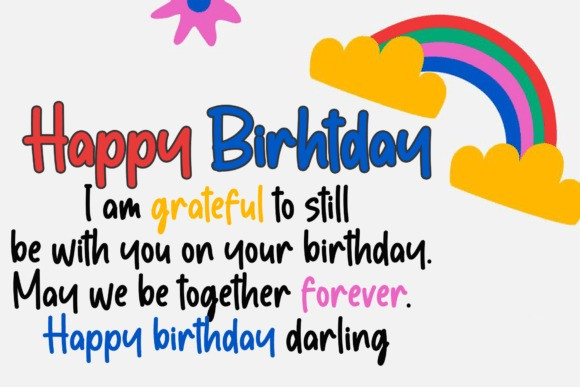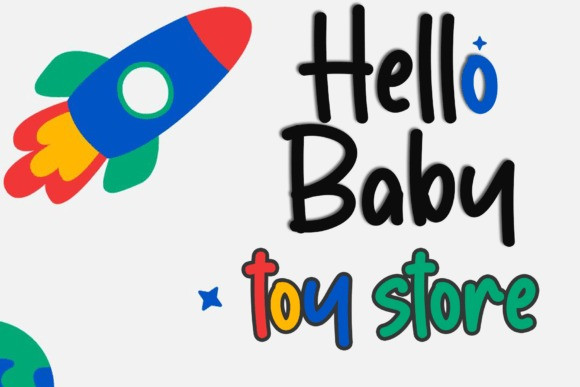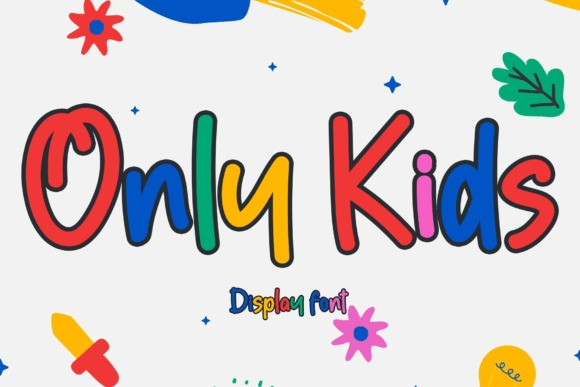
Only Kids Handwriting Font
Only Kids Handwriting Font a playful and whimsical display typeface that captures the essence of childhood joy and imagination. With its vibrant and friendly letterforms, this font adds a delightful touch to your designs.
Perfect for children’s books, posters, and playful branding projects, Only Kids Font brings a sense of fun and innocence, creating a visual experience that resonates with the young and the young at heart.